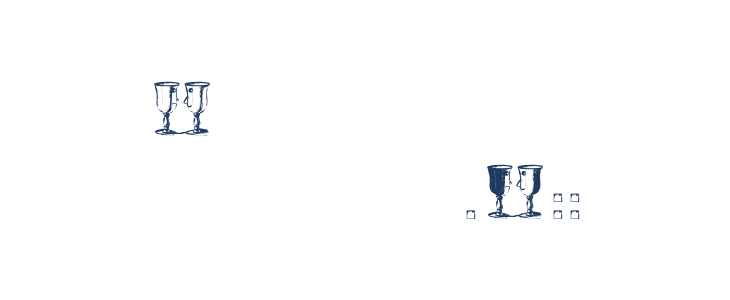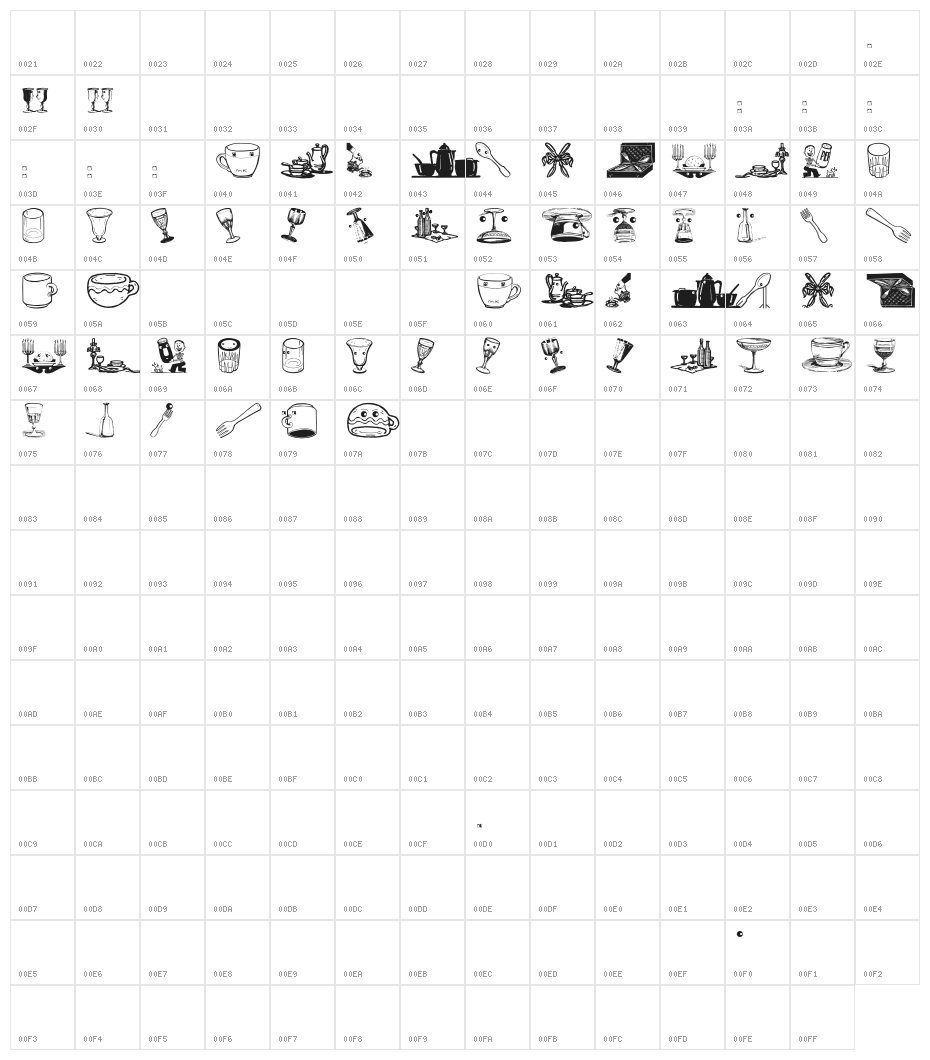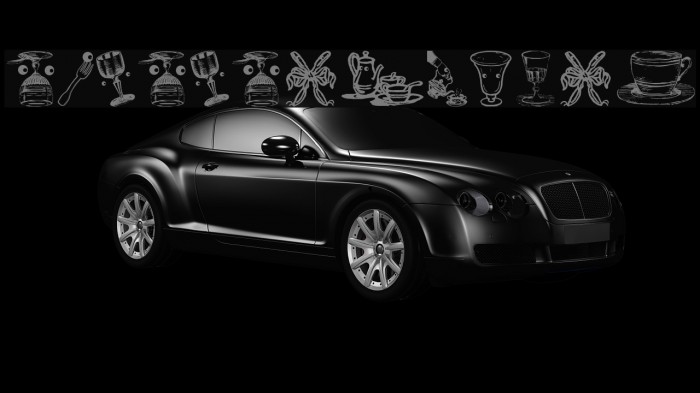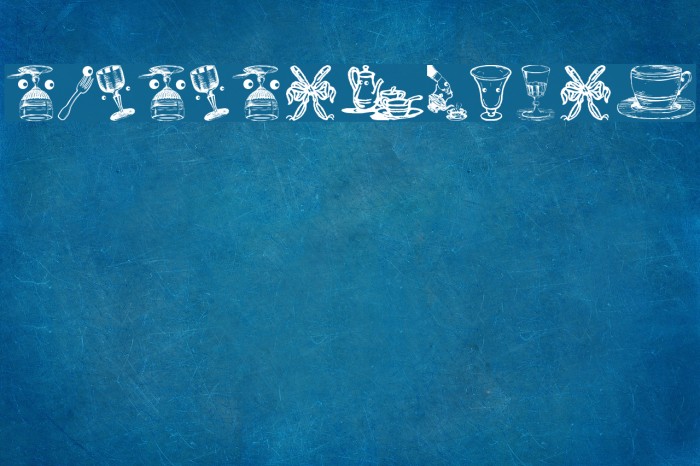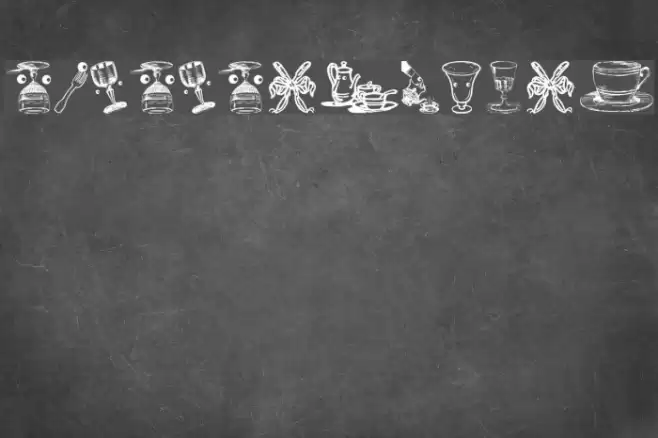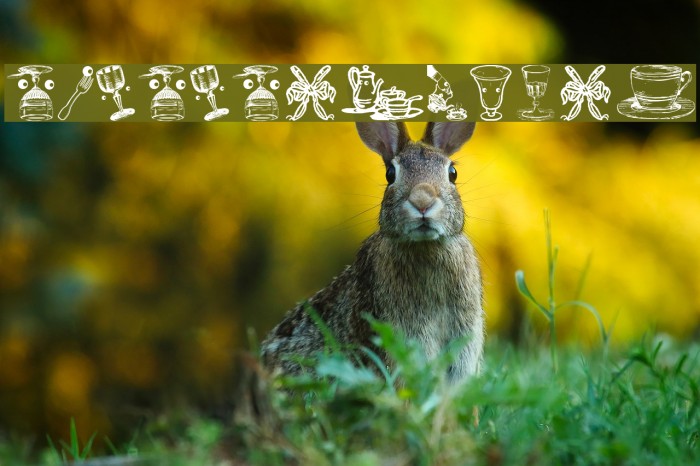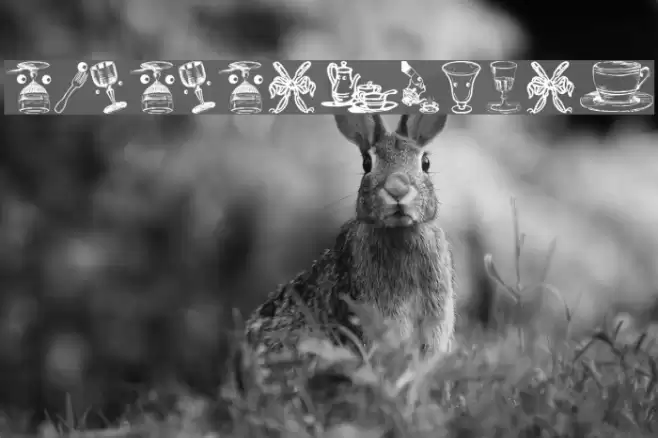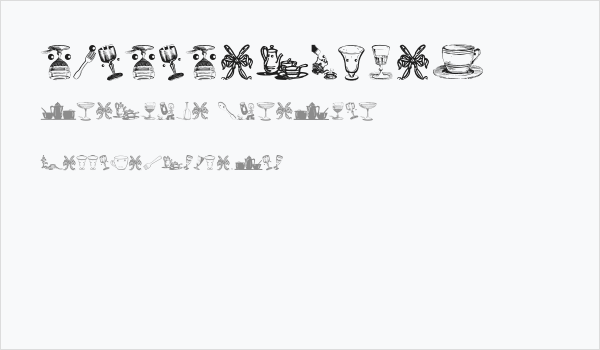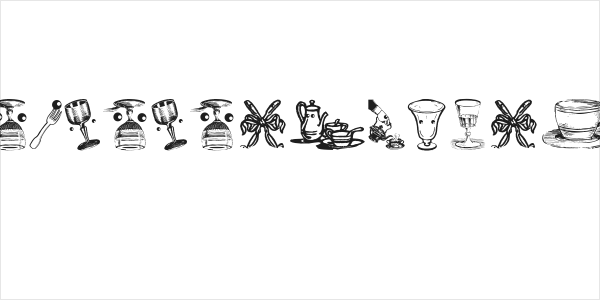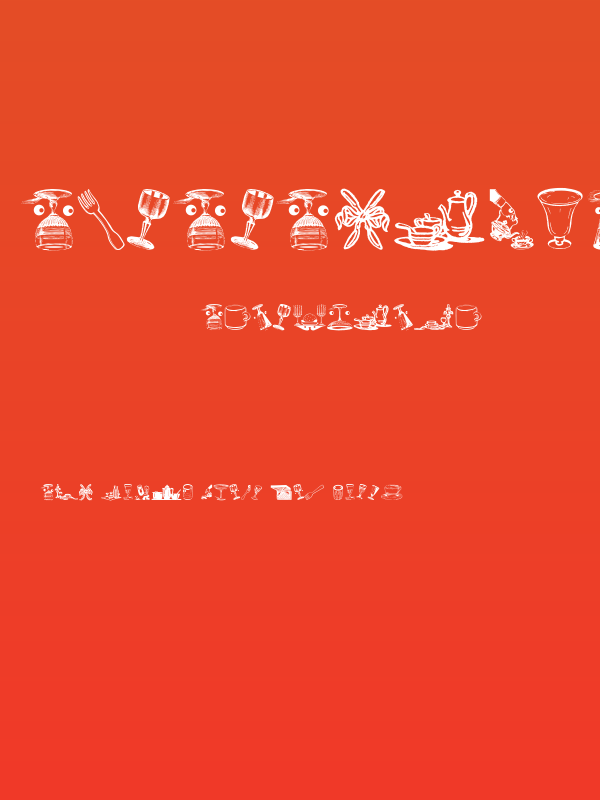
TwoToTeaBlues Font
TwoToTeaBlues Description
A decorative dingbat font featuring hand-drawn illustrations of tea sets, kitchen utensils, glasses, cups, and various dining-related objects. Each character is represented by a unique, detailed sketch, giving the font a whimsical and playful feel.
| Overall Style | Whimsical, Decorative, Playful |
| Use Case | Decorative elements, Themed graphics, Event materials |
| Proposed Projects | Invitations for tea parties, cafΓΒ© menus, recipe cards, event posters, scrapbooking, and decorative headings. |